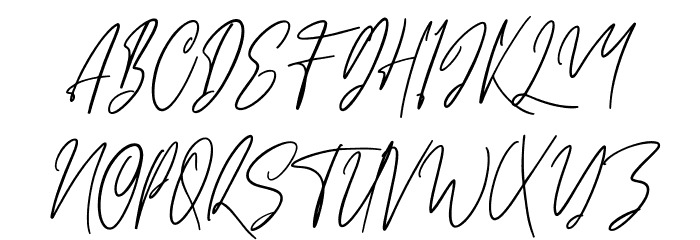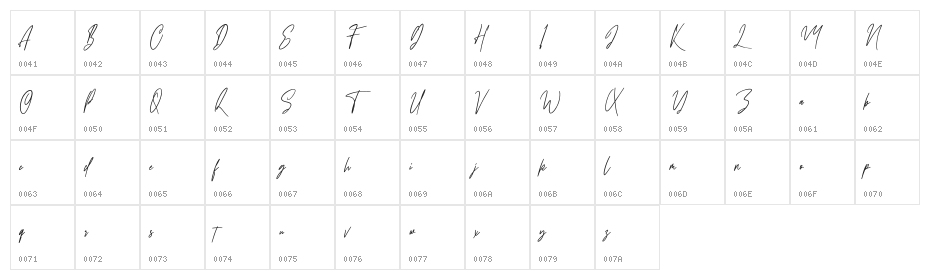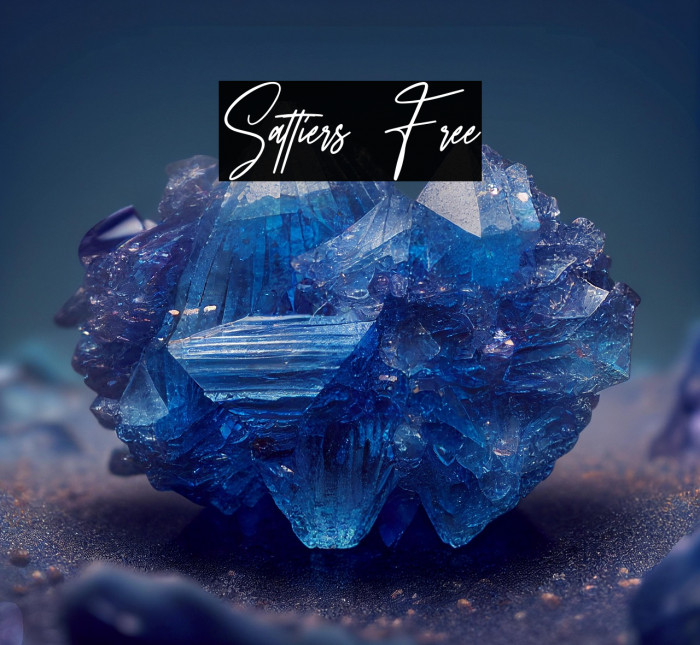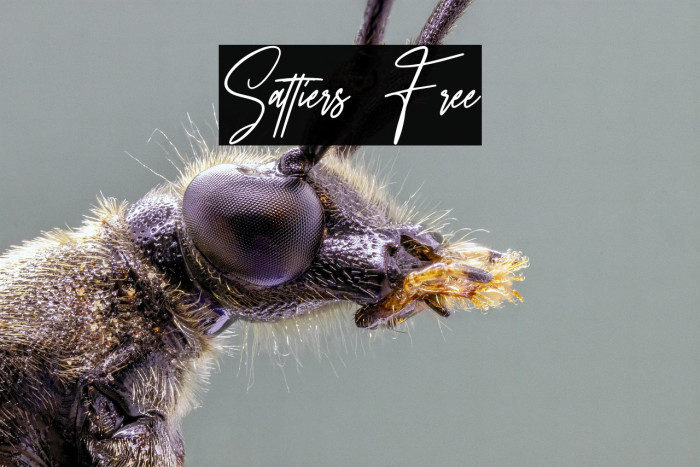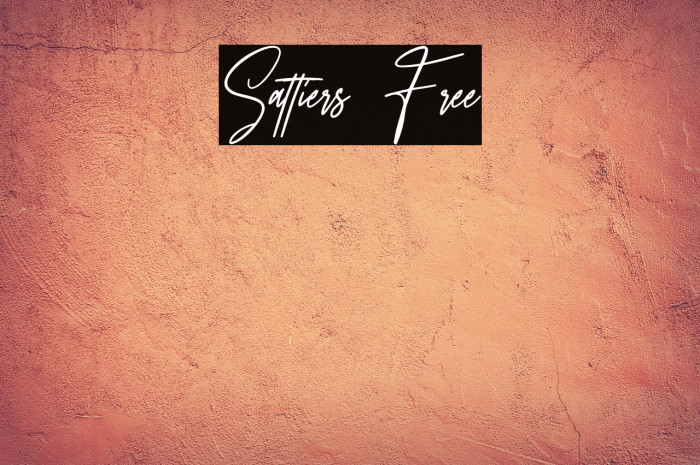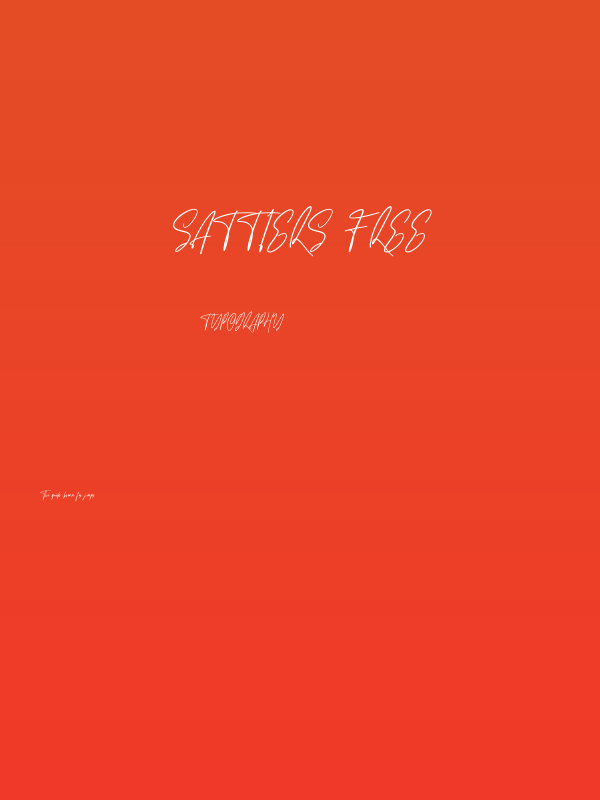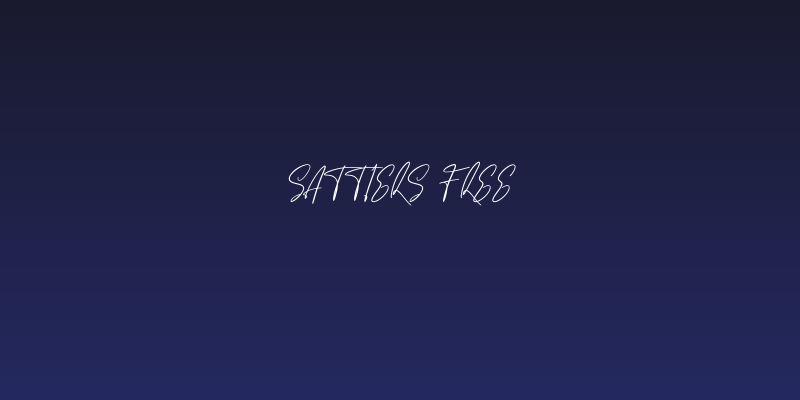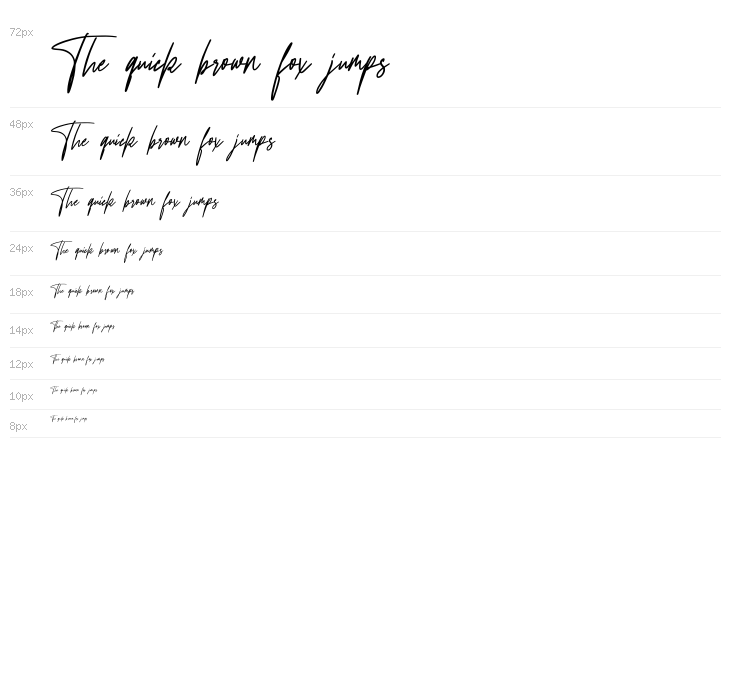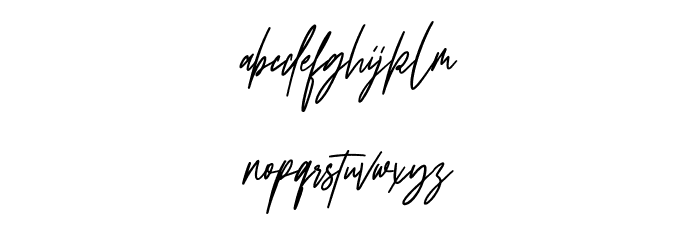
Sattiers Free Font
Sattiers Free Description
This font features an elegant, flowing script style that mimics the fluidity of natural handwriting. The characters are connected, creating a seamless and sophisticated appearance. The strokes are varied in thickness, adding a dynamic and lively feel to the text. The uppercase letters are tall and graceful, while the lowercase letters maintain a consistent rhythm and balance. This font exudes a sense of elegance and personal touch, making it suitable for projects that require a handwritten aesthetic.
| Proposed Projects | Ideal for wedding invitations, greeting cards, personal branding, and any project that requires a touch of elegance and personalization. |